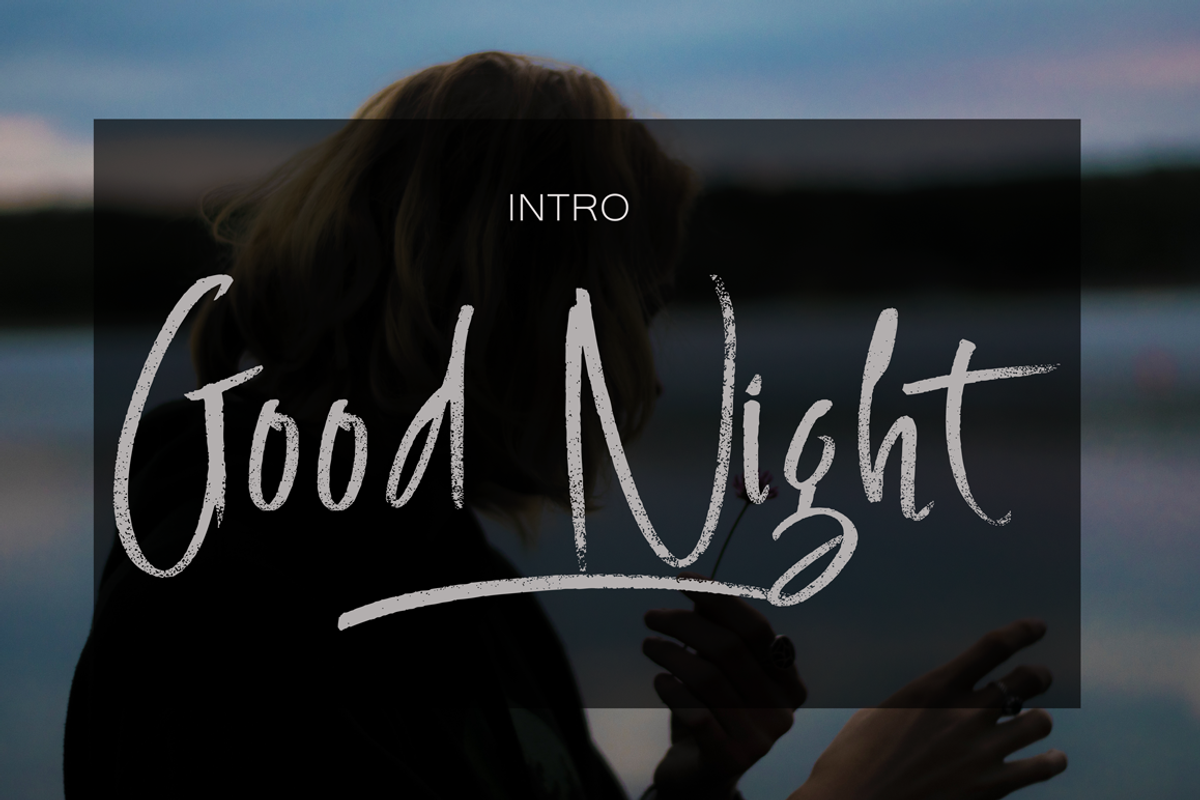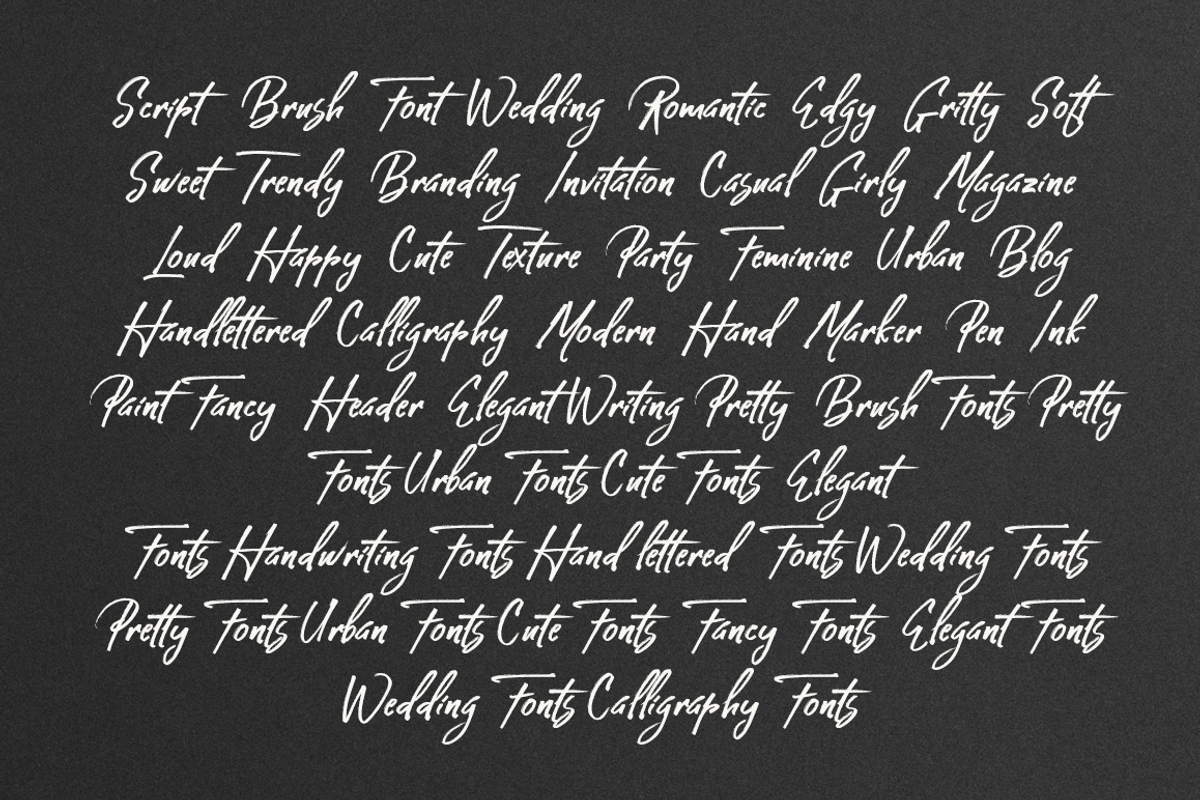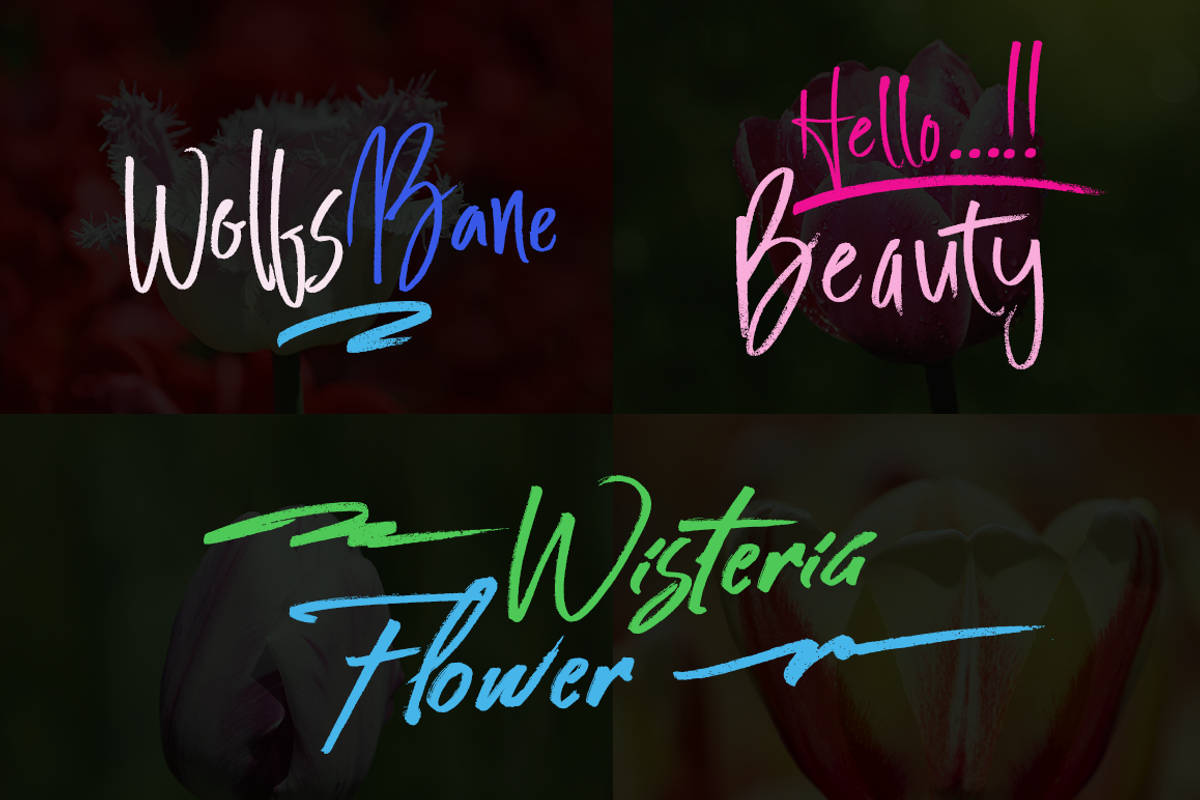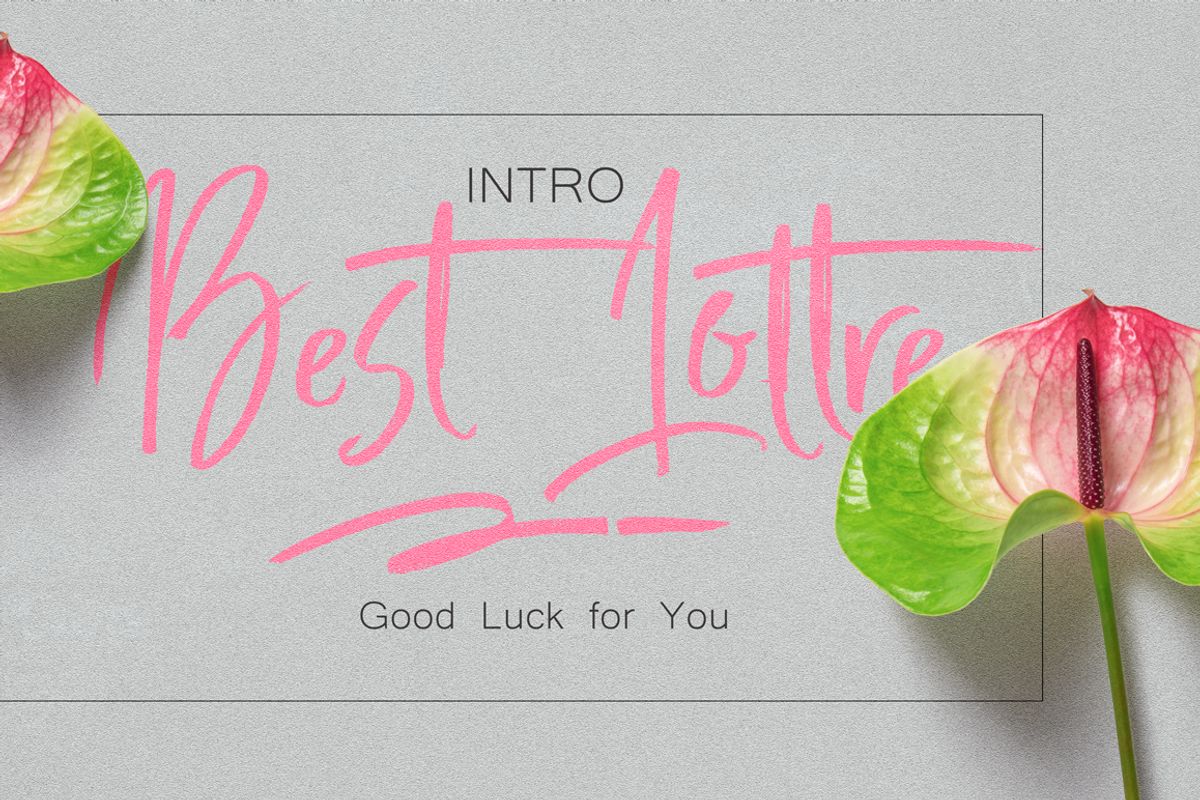
Fonts Trio
Fonts Trio by artisans is a font selected for branding, posters, packaging, typography.
Why Fonts Trio is worth a look
Fonts Trio by artisans fits naturally into Branding, posters, packaging, typography.